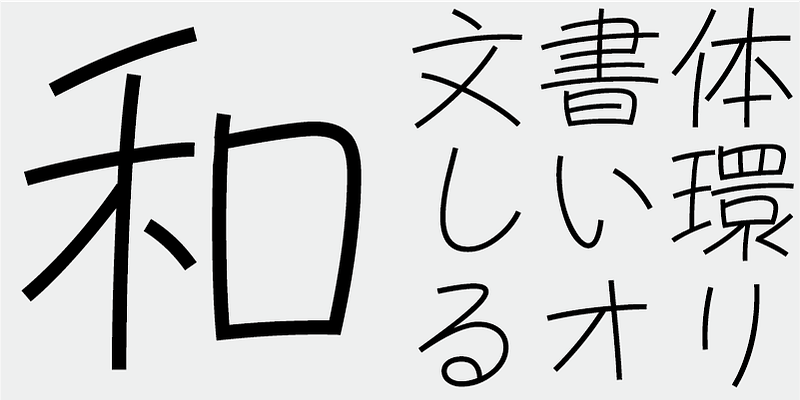
AB Circle Font Free Download
AB Circle Font Free Download is a playful and modern sans-serif typeface with rounded edges and geometric shapes. Its friendly, approachable design makes it ideal for a variety of projects, including branding, logos, packaging, social media graphics, and any design that requires a contemporary and casual vibe.
With its bold yet clean look, AB Circle Font works well for both display text and smaller body copy. It integrates easily with popular design tools like Adobe Illustrator, Photoshop, Figma, and Canva, giving you the flexibility to create both digital and print materials.